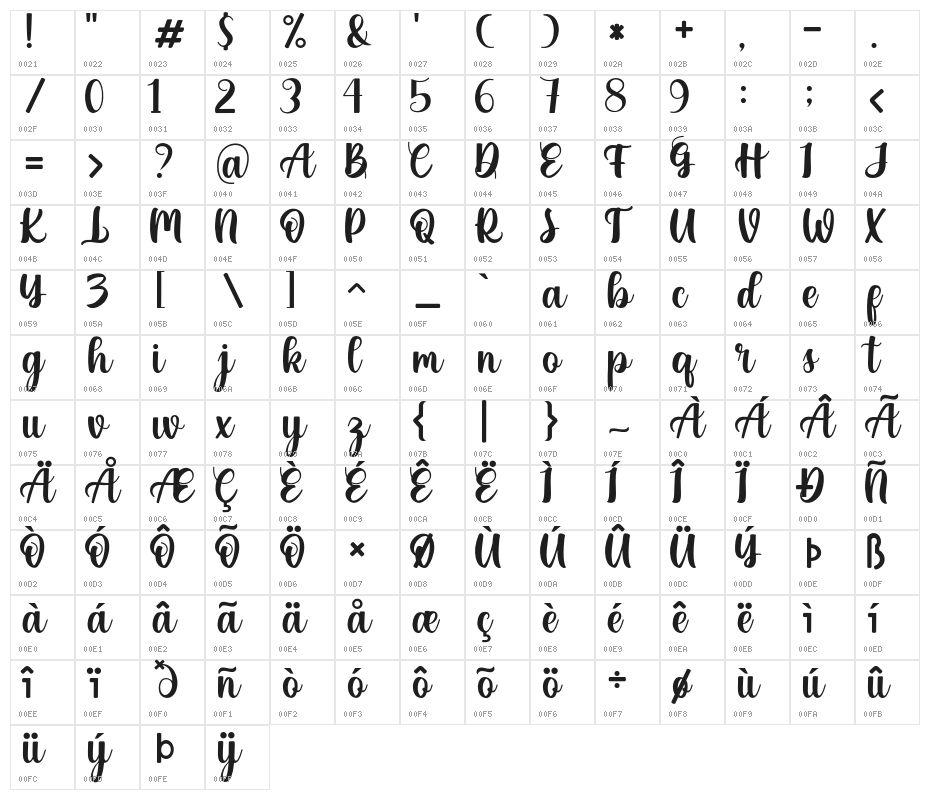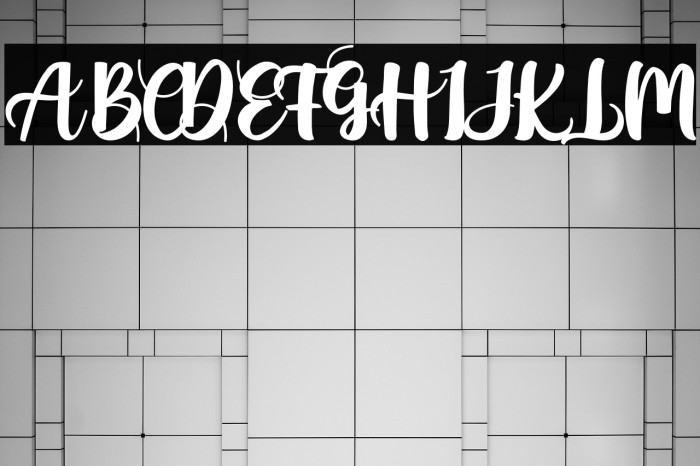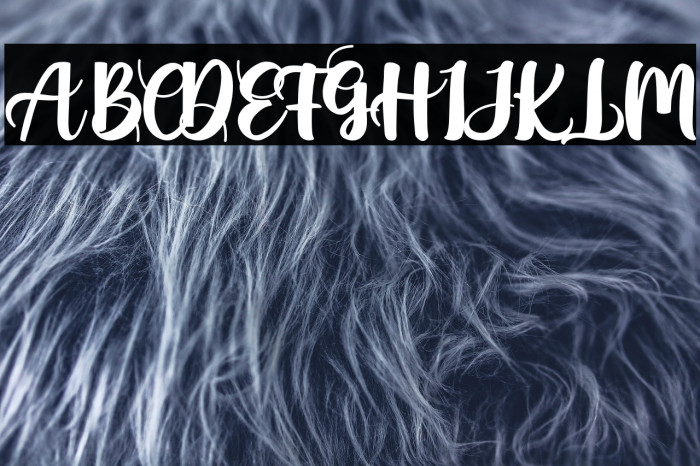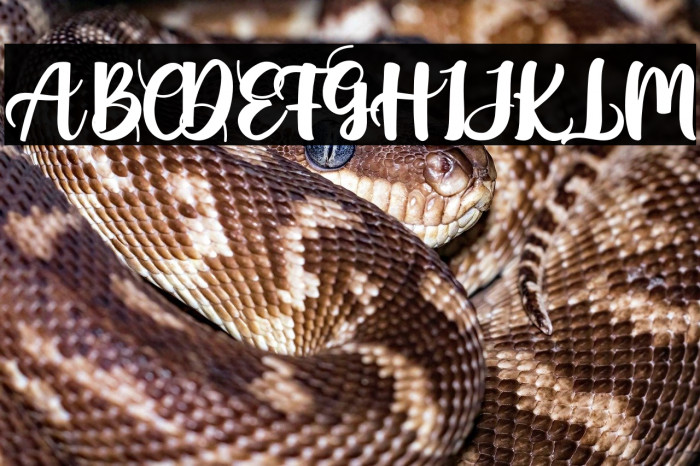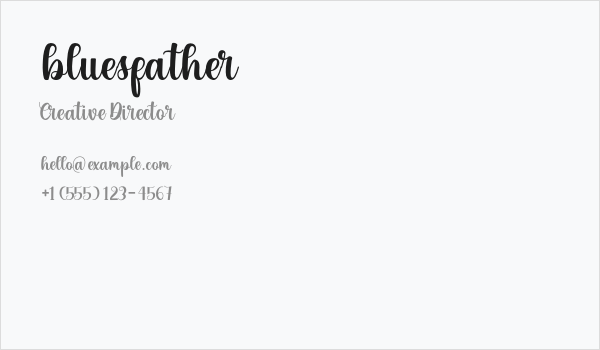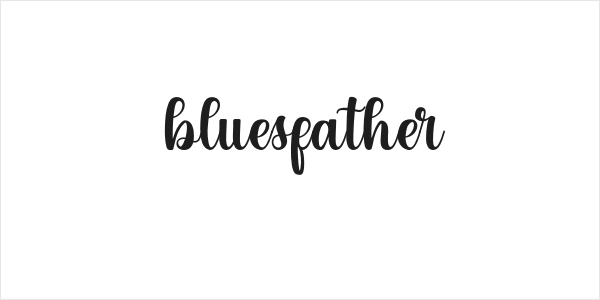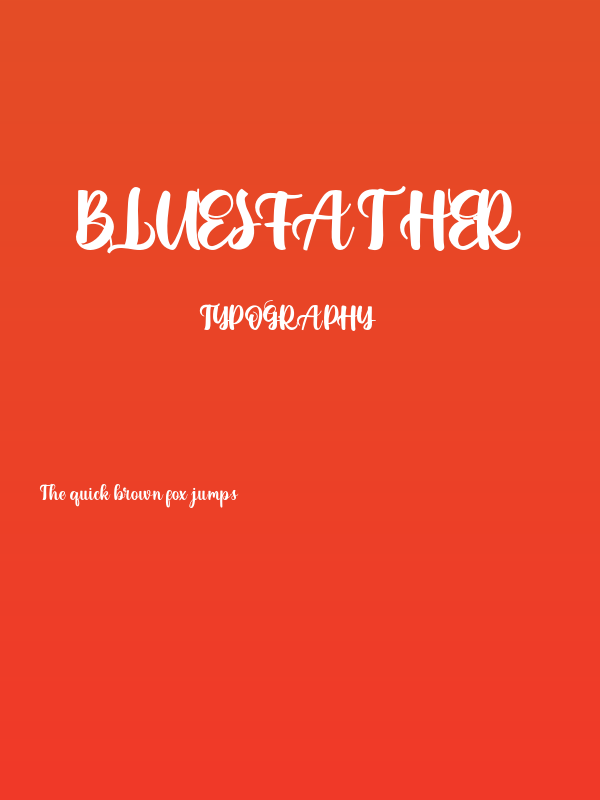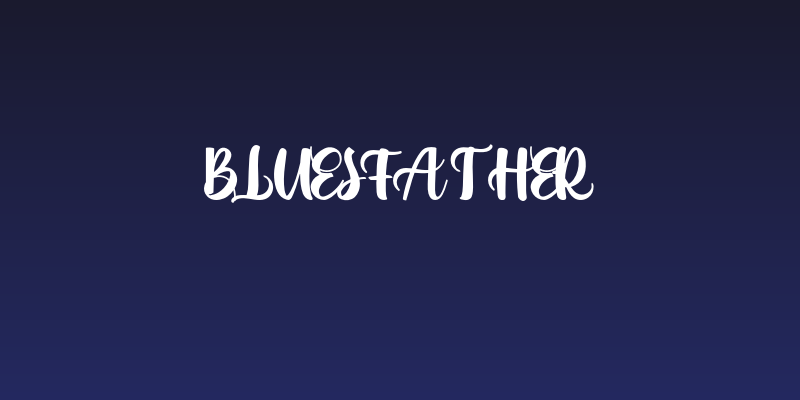
bluesfather Font
bluesfather Description
This font features a bold and flowing script style, characterized by its smooth, cursive letterforms that exude elegance and fluidity. The uppercase letters are slightly more elaborate, with sweeping curves and flourishes that add a touch of sophistication. The lowercase letters maintain a consistent flow, making them highly readable while retaining a sense of artistic flair. The numerals are clear and bold, matching the overall style of the alphabet. Special characters are integrated seamlessly, ensuring versatility in various design contexts. This font is ideal for projects that require a personal, handwritten touch, such as invitations, greeting cards, or branding materials.
Overall StyleElegant, Artistic
Use CaseHeadlines, Logos, Invitations
Proposed ProjectsIdeal for wedding invitations, greeting cards, branding, and logo design.